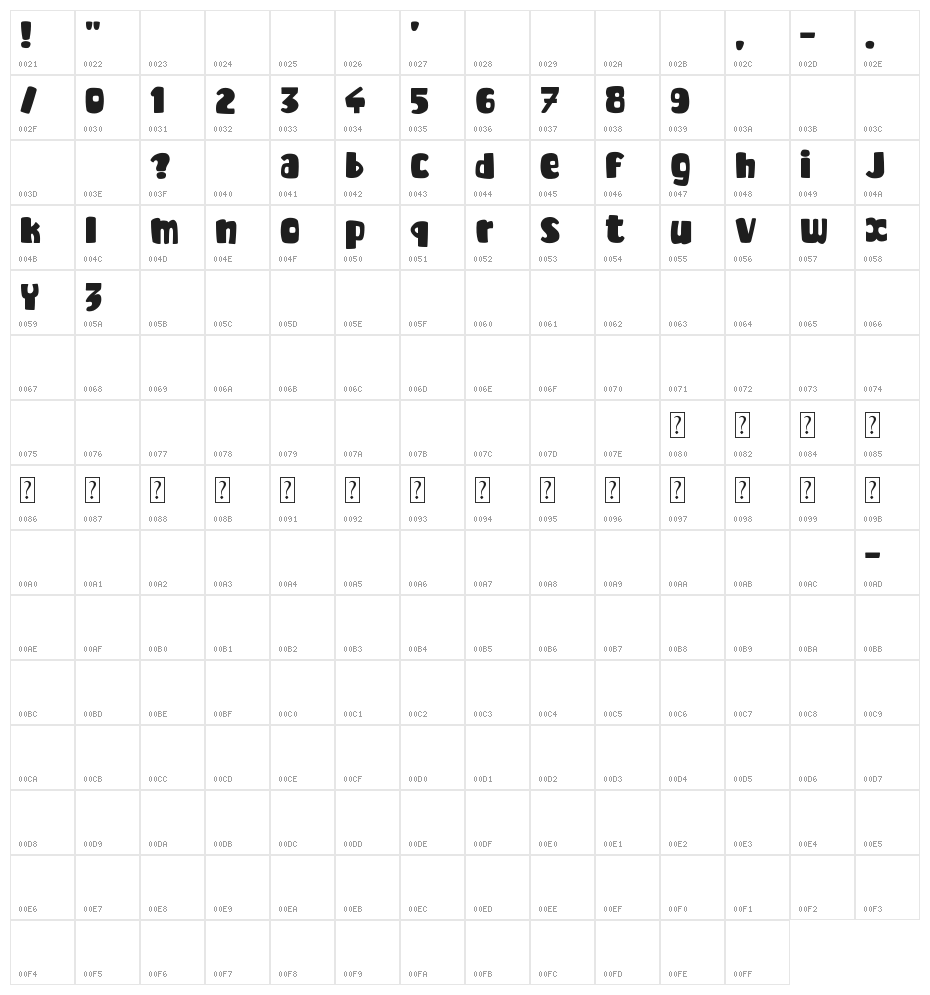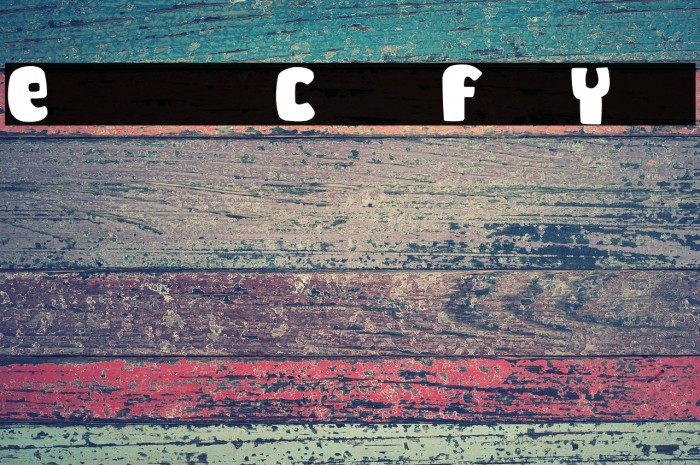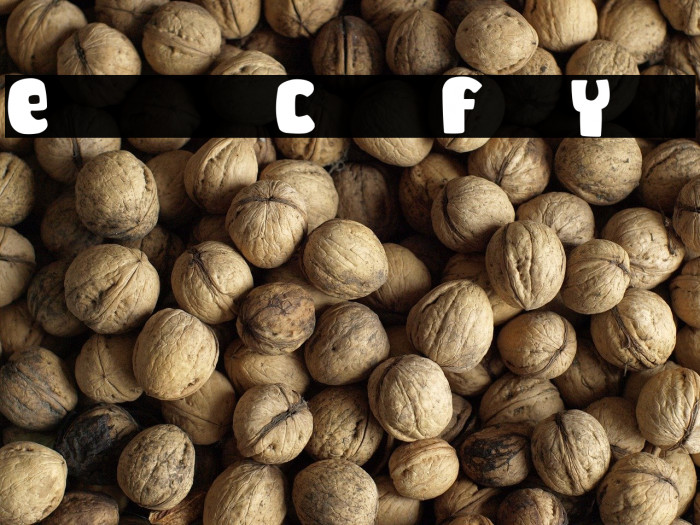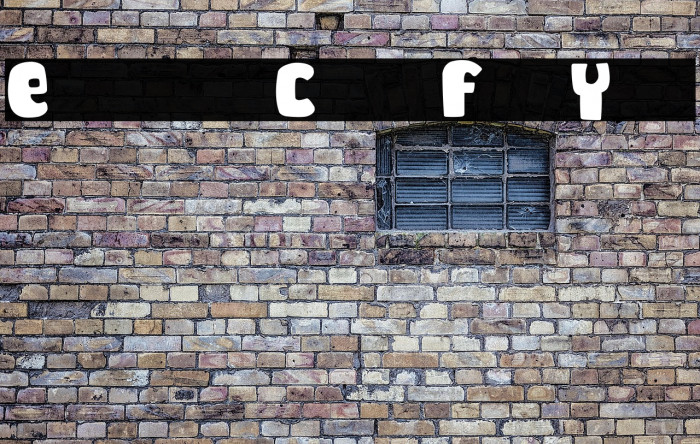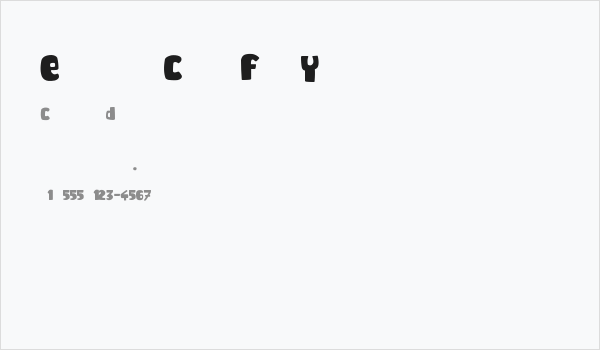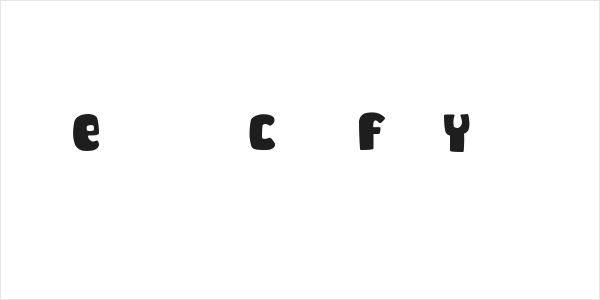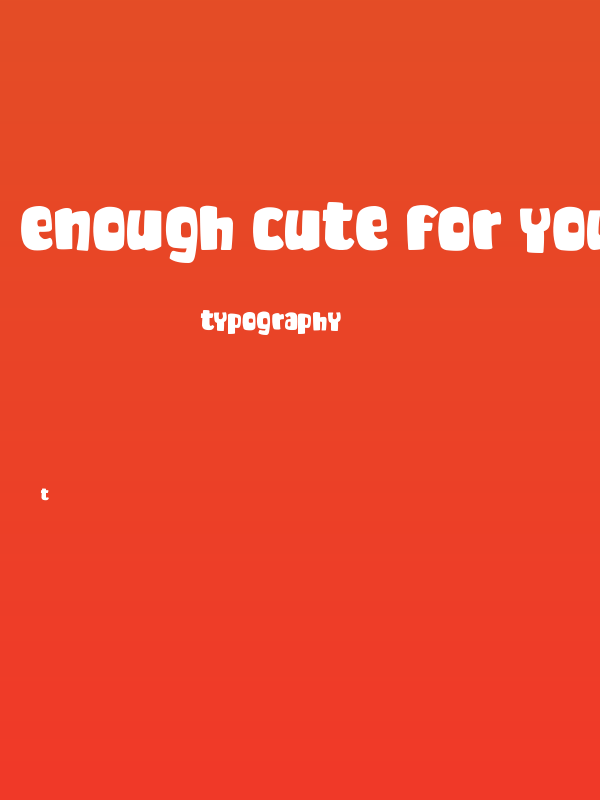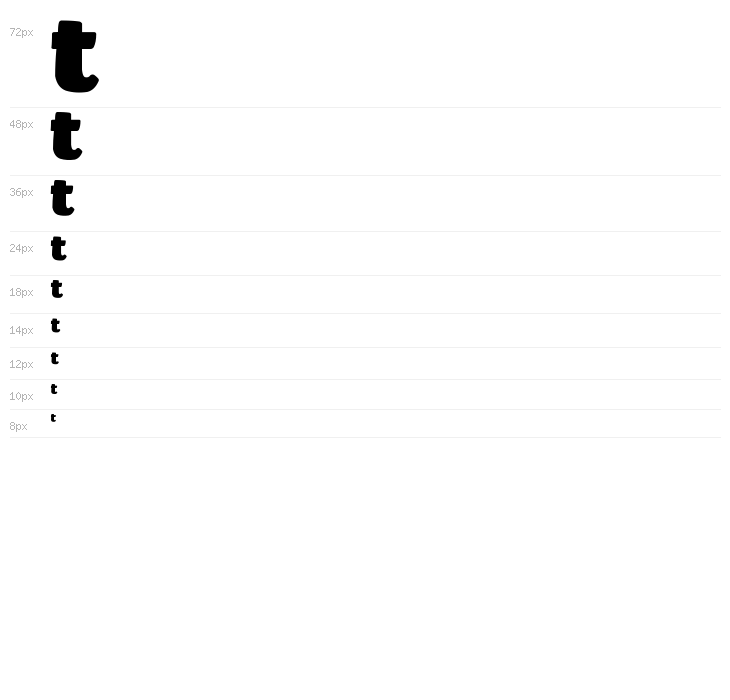
Enough Cute For You Font
Enough Cute For You Description
This playful and bold font features rounded, chunky letters that convey a sense of fun and whimsy. The characters are uniformly thick, with a slightly irregular shape that adds to their charm. The font is highly legible, with each letter distinct and easily recognizable. The numbers and special characters maintain the same playful style, making this font versatile for various uses. Its boldness ensures it stands out, making it ideal for eye-catching designs.
| Proposed Projects | Perfect for children's books, playful branding, party invitations, or any project needing a fun, whimsical touch. |